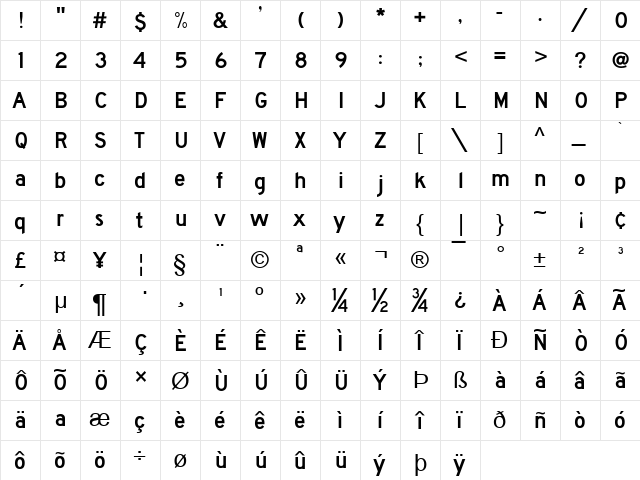
Roadgeek 2000 Series D Regular
Design Context for Roadgeek 2000 Series D Typeface
Roadgeek 2000 Series D is a composed and adaptable typeface that performs quietly and consistently across a wide range of design contexts.